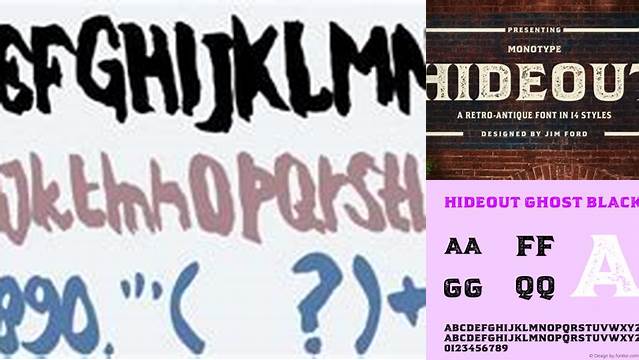
1. Understanding the Hideout Ghost Black Font
Hideout Ghost Black Font isn't just another typeface; it's a statement. Its bold, assertive strokes and slightly eerie vibe make it perfect for projects that need to stand out. Imagine using it for a horror movie poster, a metal band’s album art, or even a spooky-themed event invitation. The font exudes confidence and a hint of mystery, making it incredibly versatile for various design applications. Its unique character set ensures that your text will always have a distinctive flair, capturing the audience's attention instantly.
Key Characteristics
- Bold and Assertive: The thick strokes give it a commanding presence.
- Eerie Vibe: A touch of the macabre makes it perfect for themed designs.
- Versatile: Suitable for a wide range of projects, from posters to websites.
- Unique Character Set: Adds a distinctive flair to your text.
4. Using Hideout Ghost Black Font in Graphic Design Projects
Alright, you've got Hideout Ghost Black Font installed, and you're itching to use it. Where does this font really shine? Think about projects where you want to make a bold statement. It's perfect for posters, especially those with a dark or edgy theme. Album covers, logos, and even website headers can benefit from its unique look. Just remember, a little goes a long way. Because it's so distinctive, using it sparingly can have a bigger impact than plastering it everywhere. Experiment with different sizes, colors, and effects to see what works best for your design.
Project Ideas
- Posters: Perfect for movie posters, event announcements, and promotional materials.
- Album Covers: Ideal for bands looking for a bold and unique visual identity.
- Logos: Creates a memorable and distinctive brand image.
- Website Headers: Adds a touch of edginess to your website design.
5. Pairing Hideout Ghost Black Font with Other Fonts
Even the coolest fonts need a friend. Hideout Ghost Black Font is no exception. Pairing it with the right font can elevate your design from good to amazing. Since Hideout Ghost is so bold, try pairing it with a simpler, more understated font for body text. Think along the lines of a clean sans-serif like Open Sans or a classic serif like Times New Roman. This creates a nice contrast and keeps your design balanced. You want the Hideout Ghost to stand out without overwhelming the rest of your text.
Font Pairing Suggestions
- Open Sans: A clean and versatile sans-serif for body text.
- Times New Roman: A classic serif font that provides a nice contrast.
- Roboto: Another great sans-serif option for a modern look.
6. Exploring Alternatives to Hideout Ghost Black Font
Sometimes, you might want a similar vibe but not the exact same font. No problem! There are tons of fonts out there that offer a similar aesthetic to Hideout Ghost Black Font. Fonts like Bebas Neue, Impact, or even a customized version of Arial Black can give you that bold, impactful look. Experiment with different weights and styles to find the perfect alternative. The key is to look for fonts with thick strokes and a strong presence.